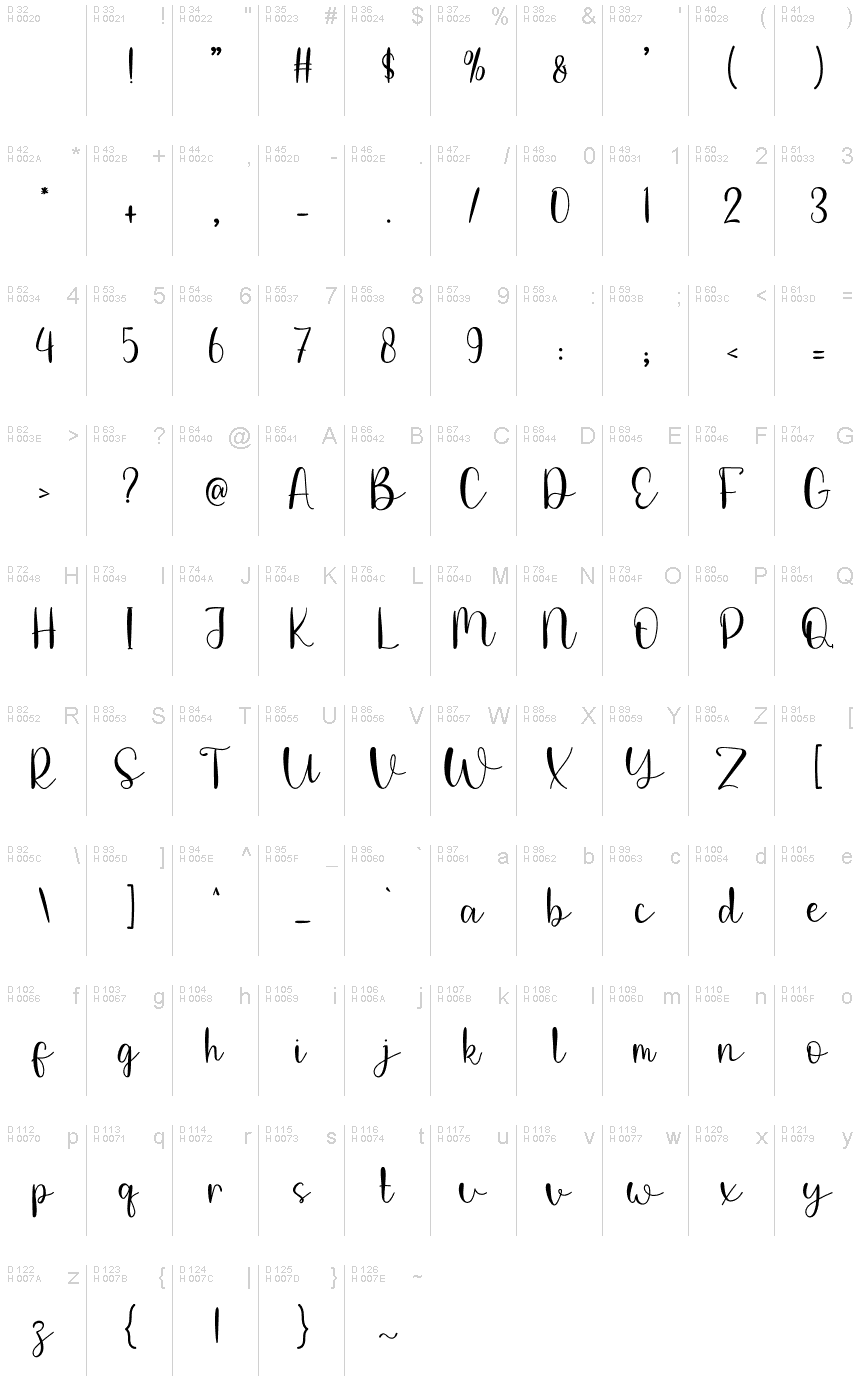
Montana
Montana is a light, lovely handwritten font designed by Inermedia Studio. Perfect for creating eye-catching designs, Montana can be used to add a personal touch to diverse projects such as greeting cards, logos, social media posts and even book covers.